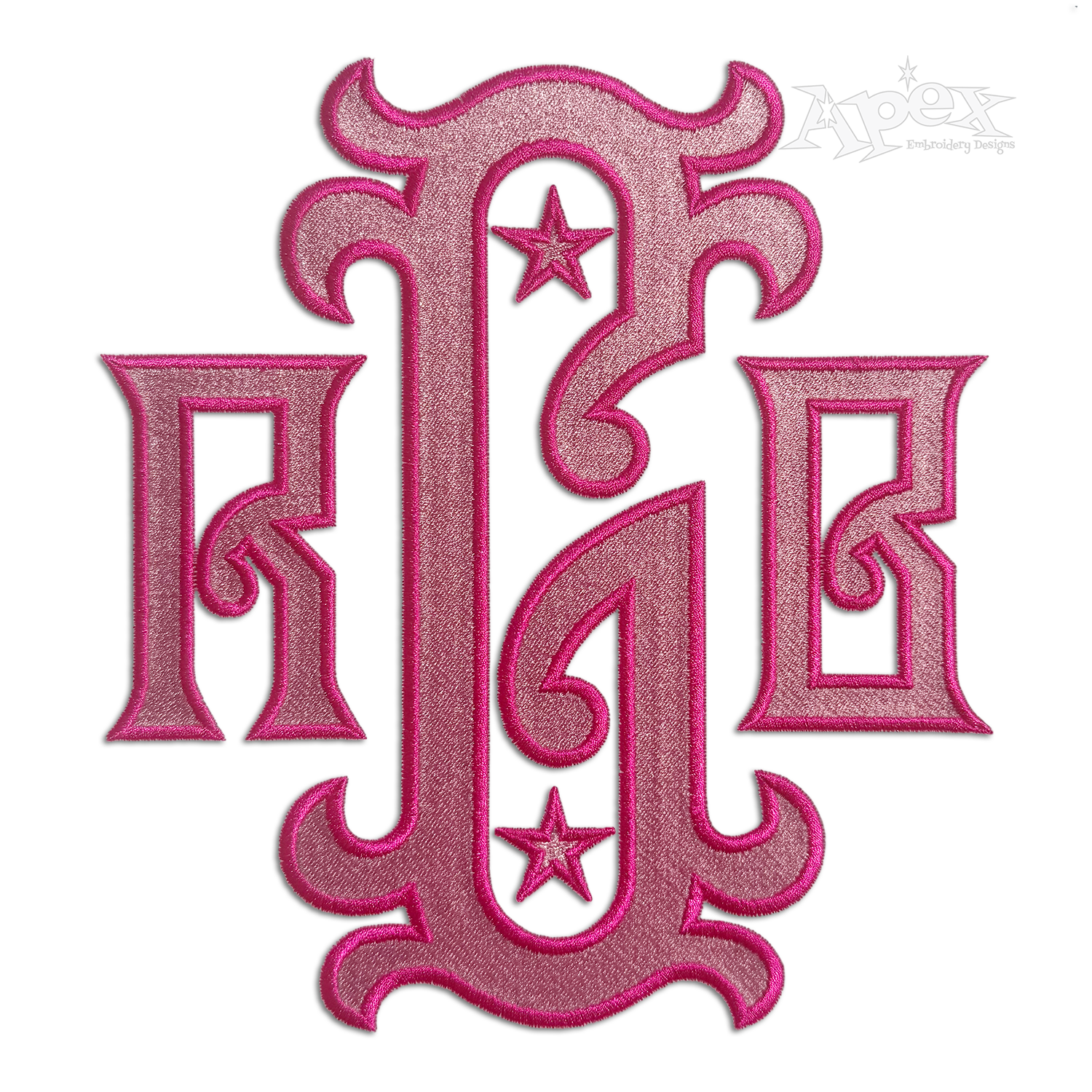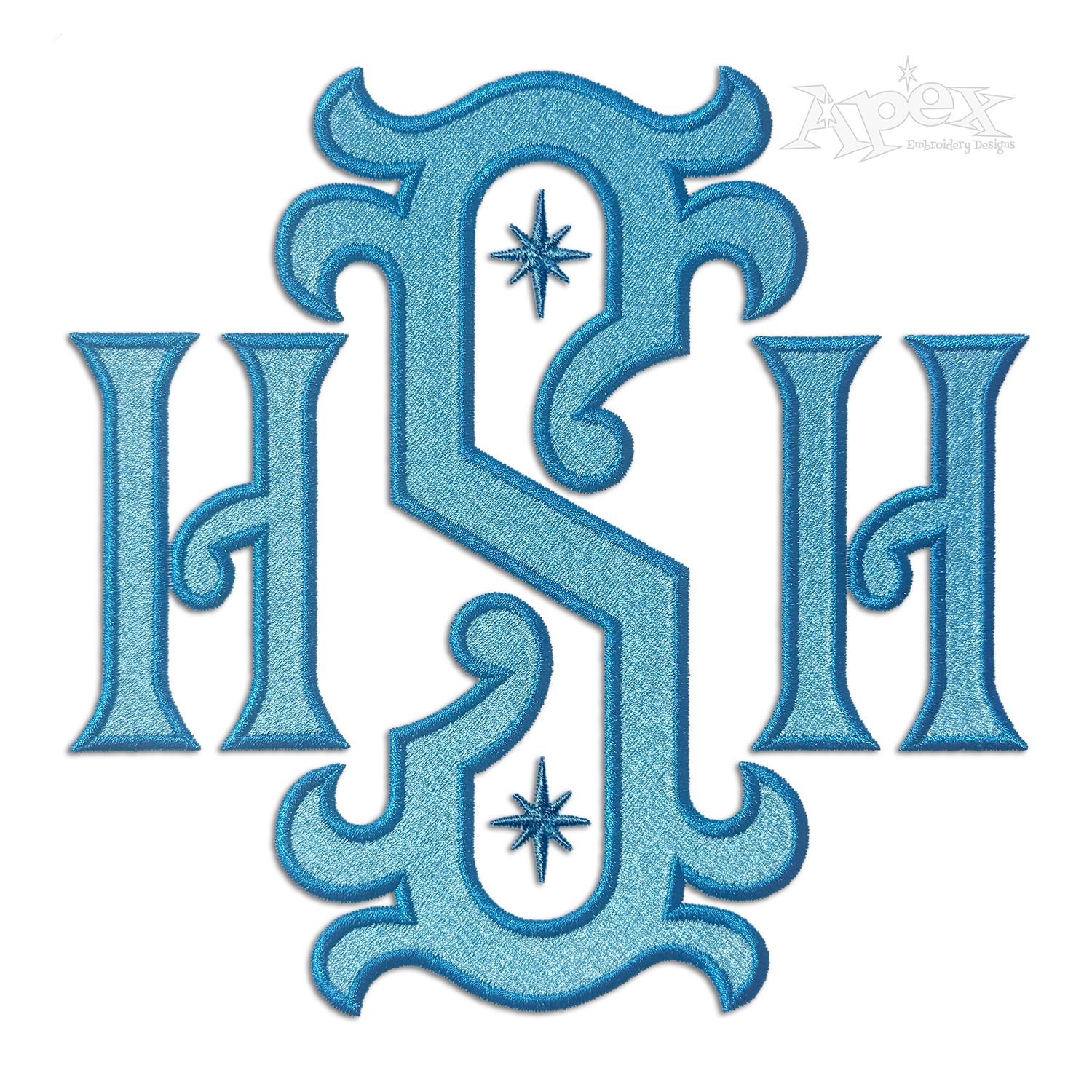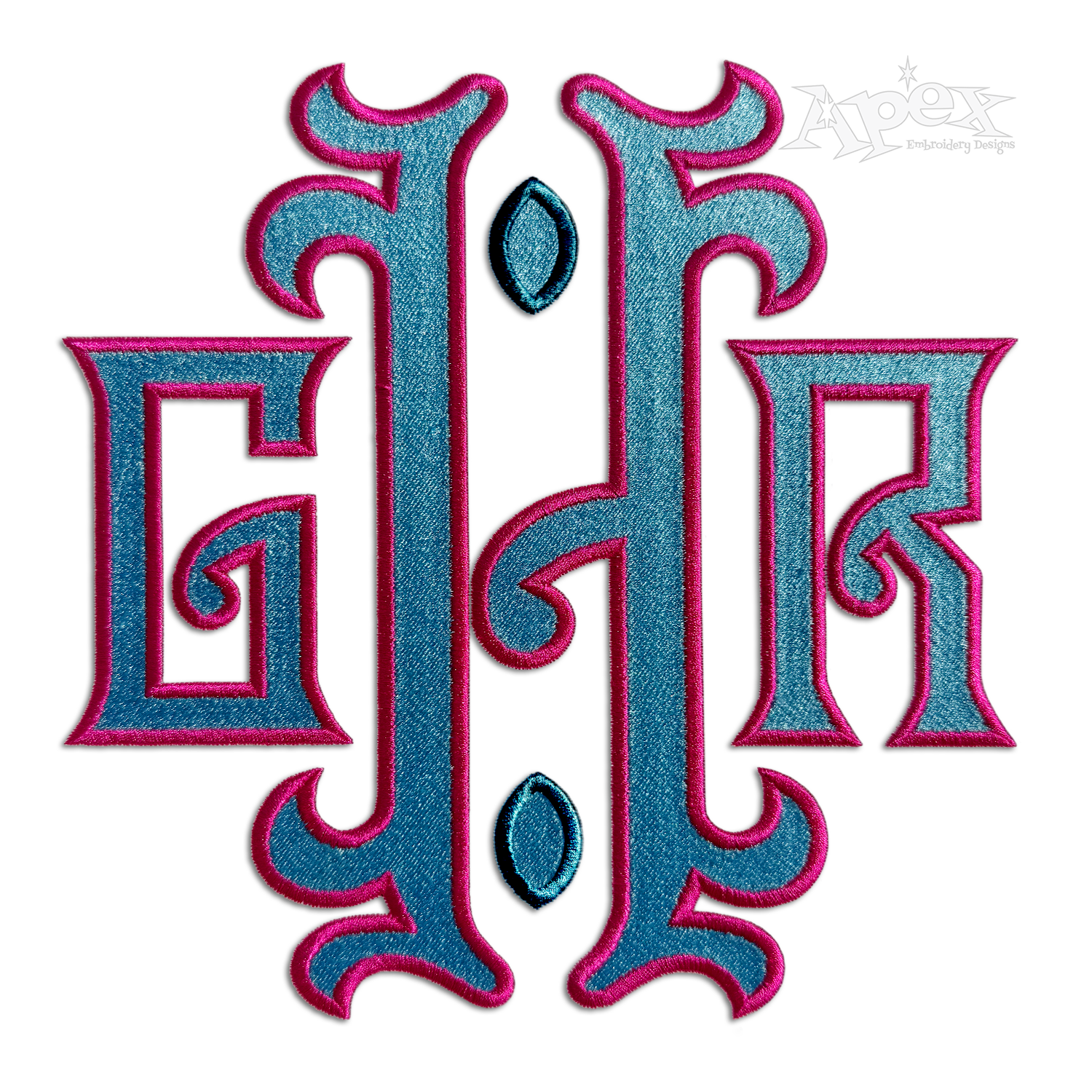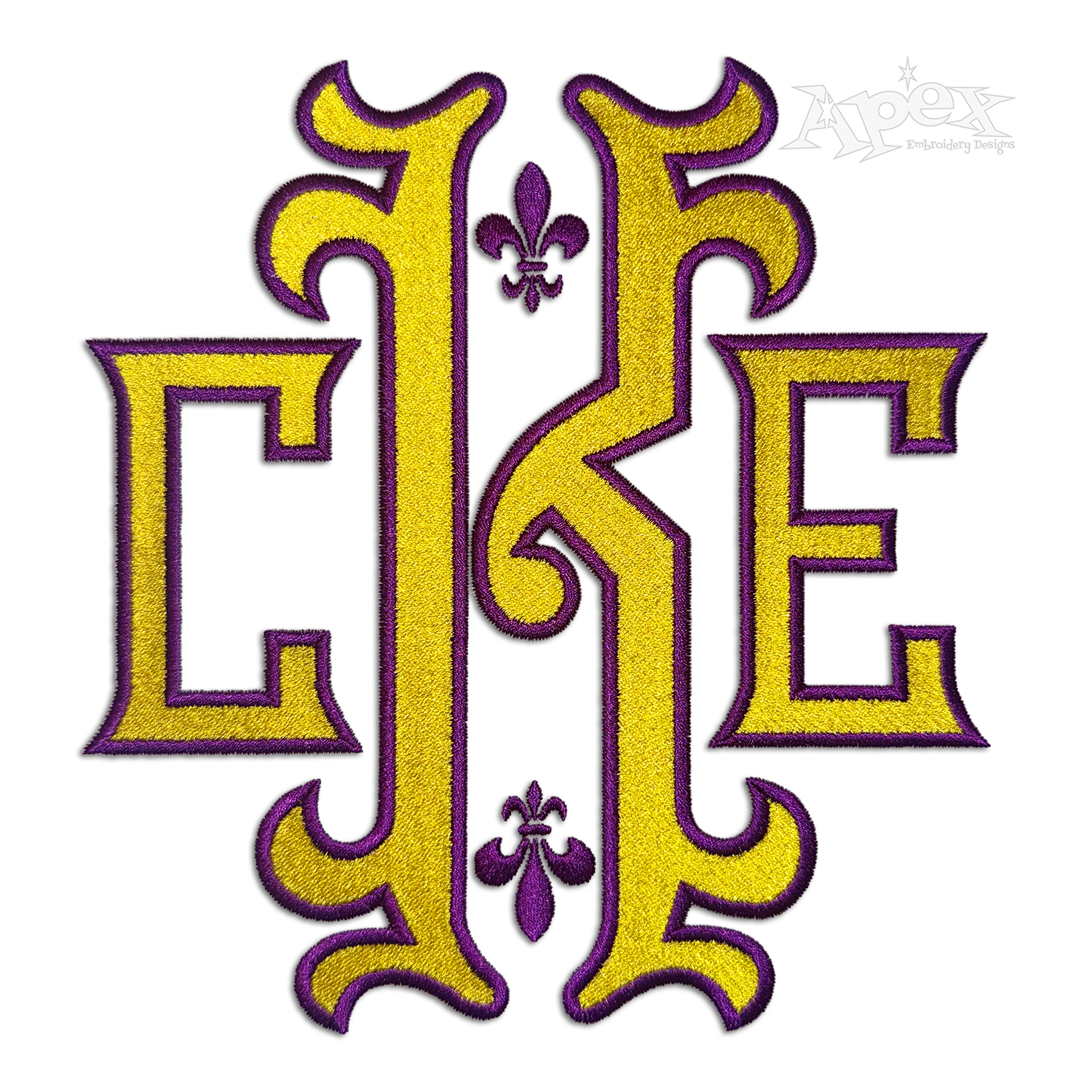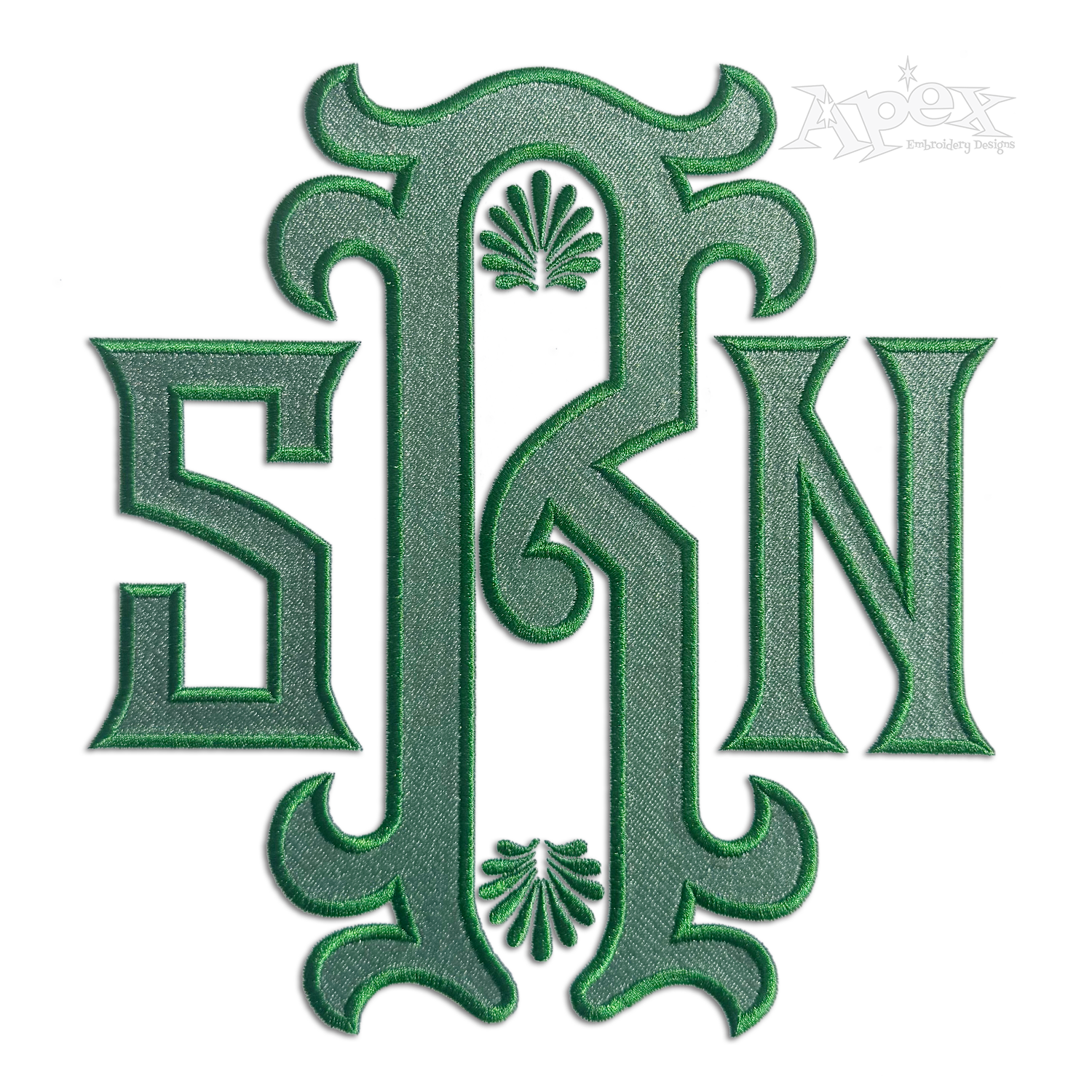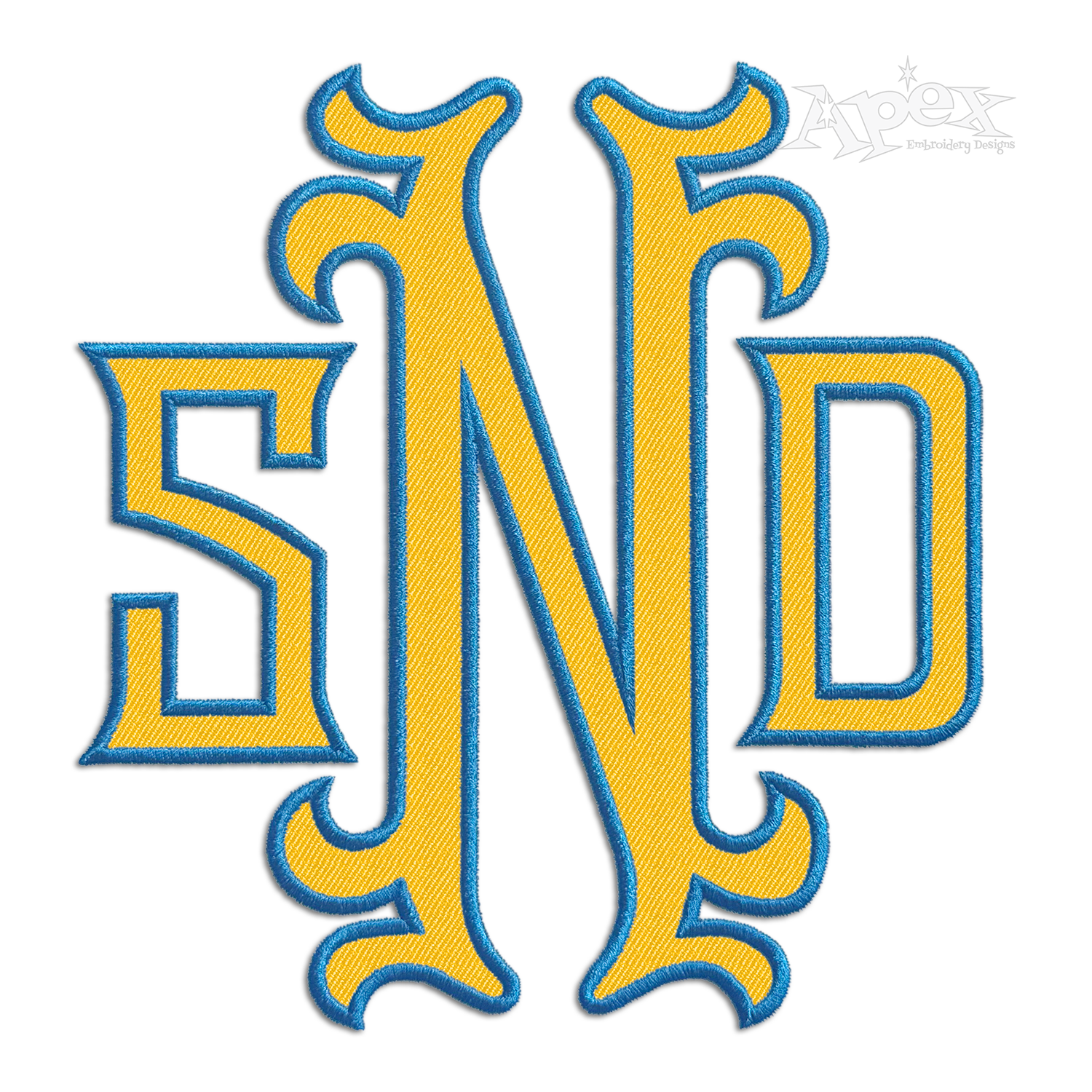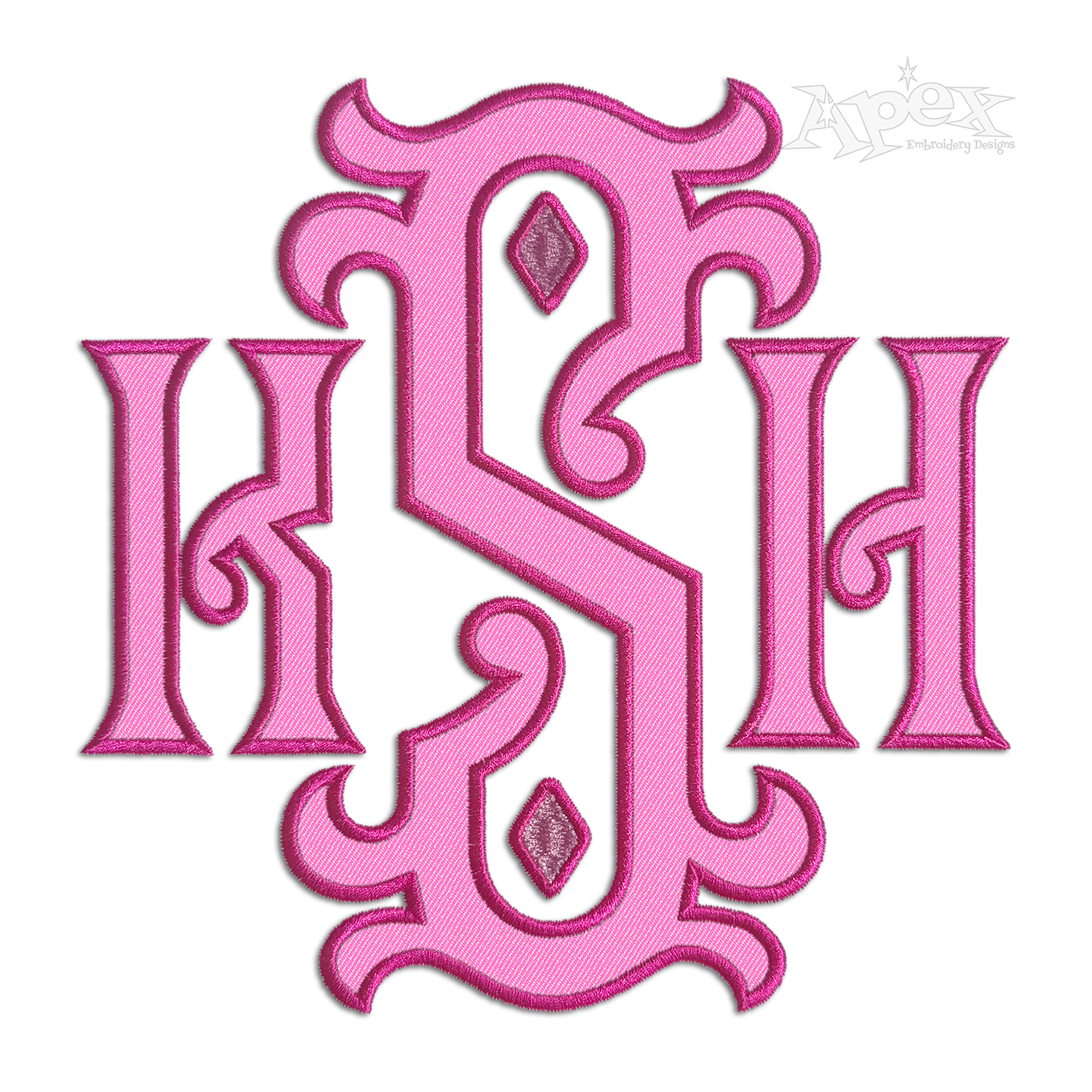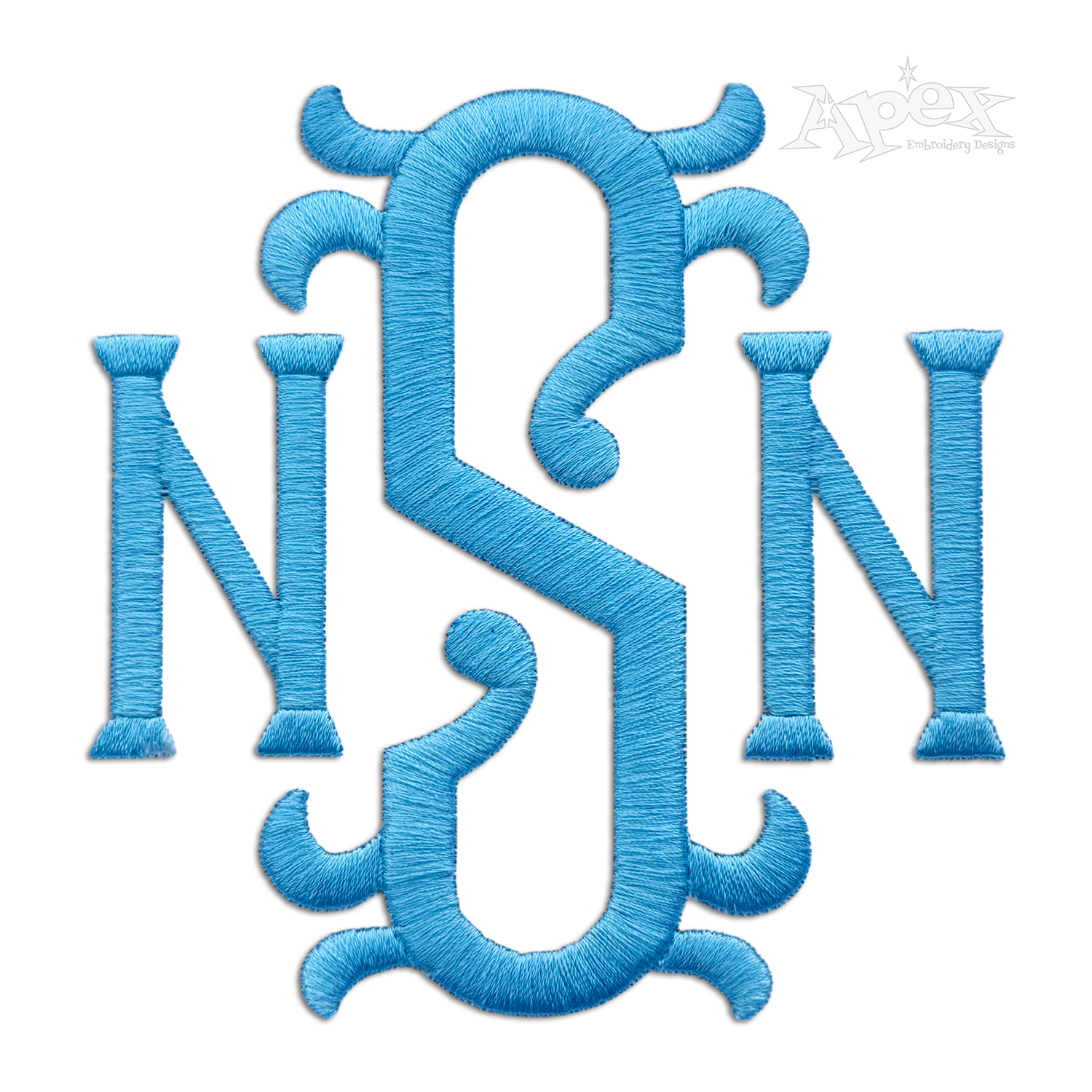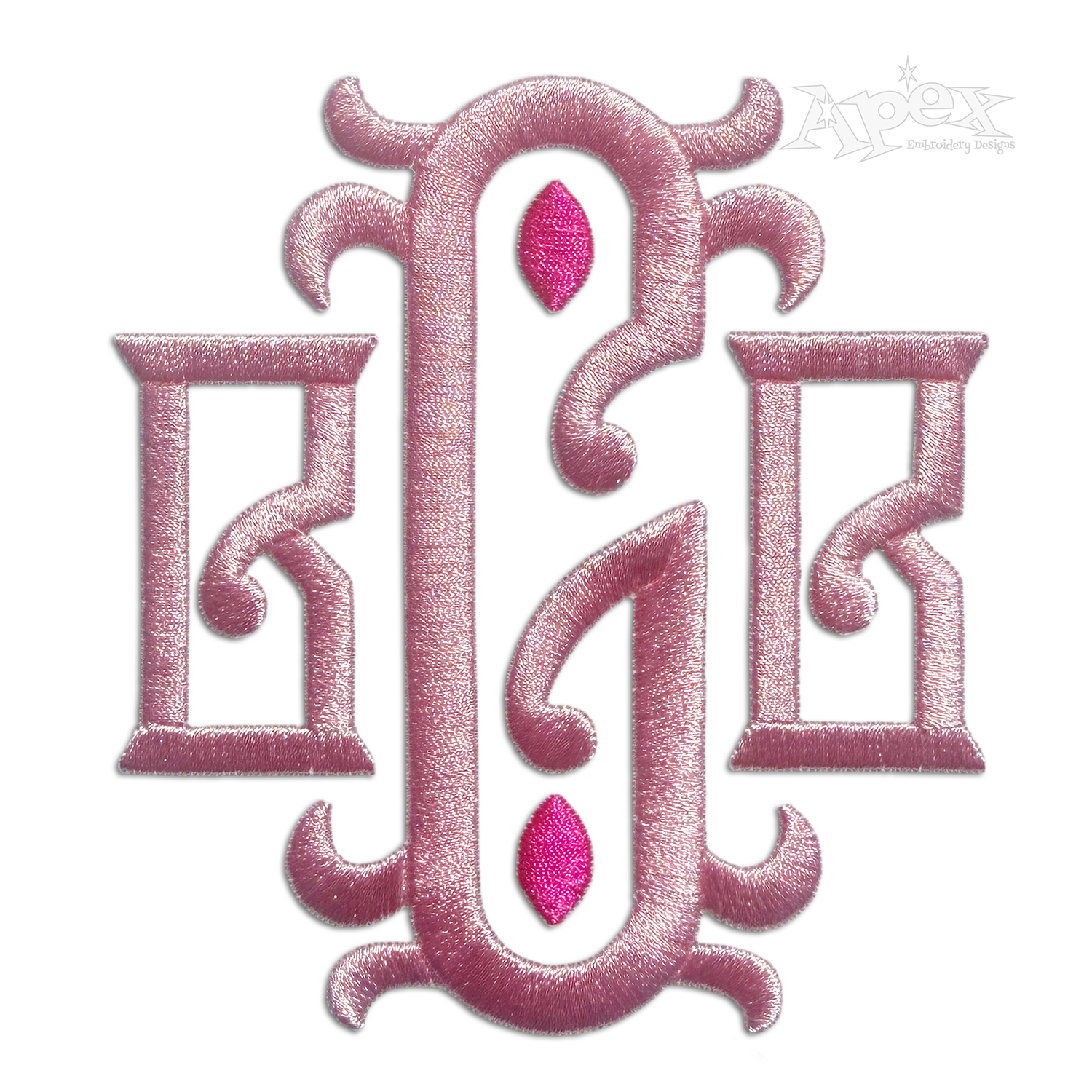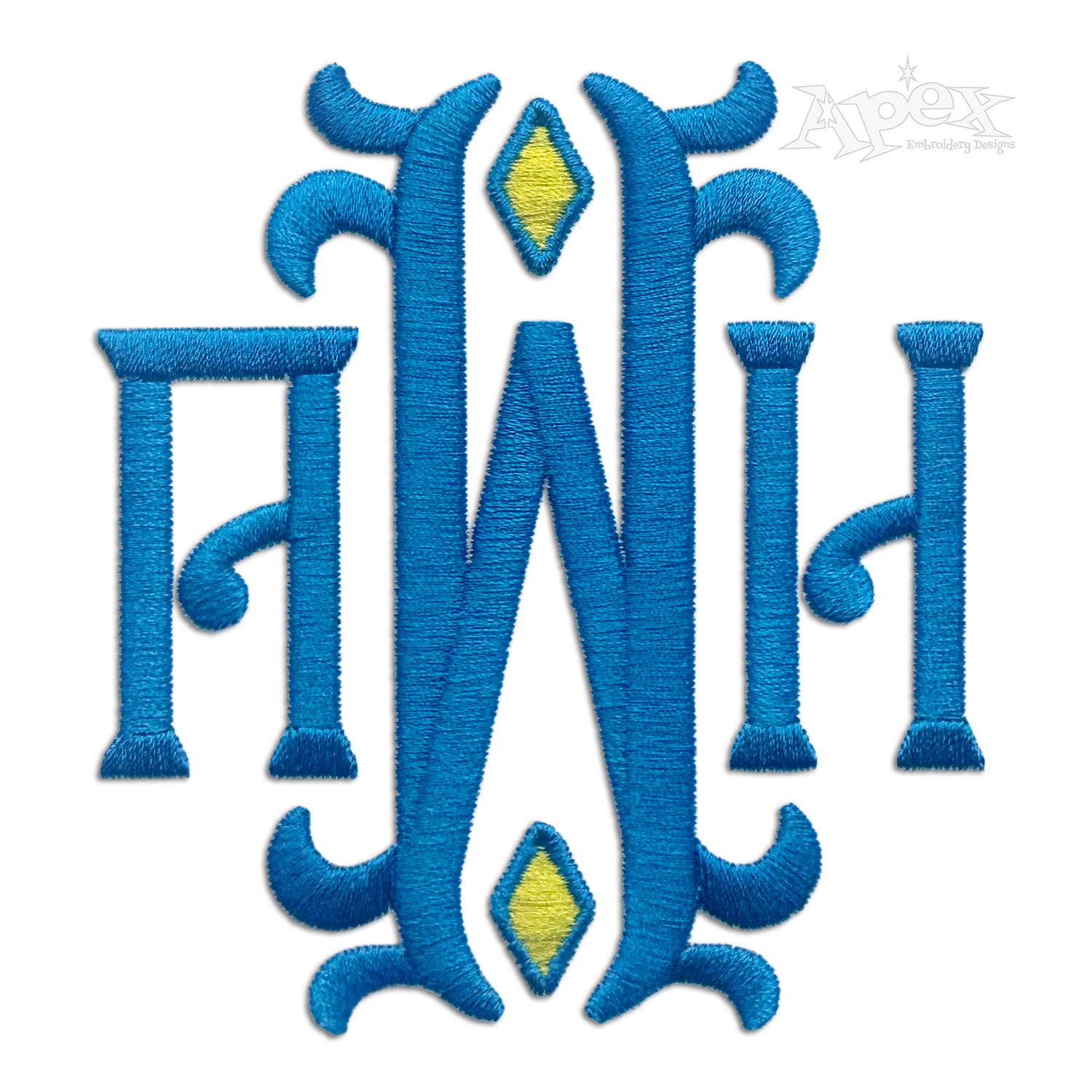
Vienna Fire 3-letter Monogram Machine Embroidery Font BX Included
Create European style personalized gifts and home décor with this Vienna Fire Monogram Embroidery Font Bundle. Featuring a classic with Europe Regal stylish 2-color embroidery monogram set is perfect for customizing hats, linens, towels, baby gifts, tote bags, and more.